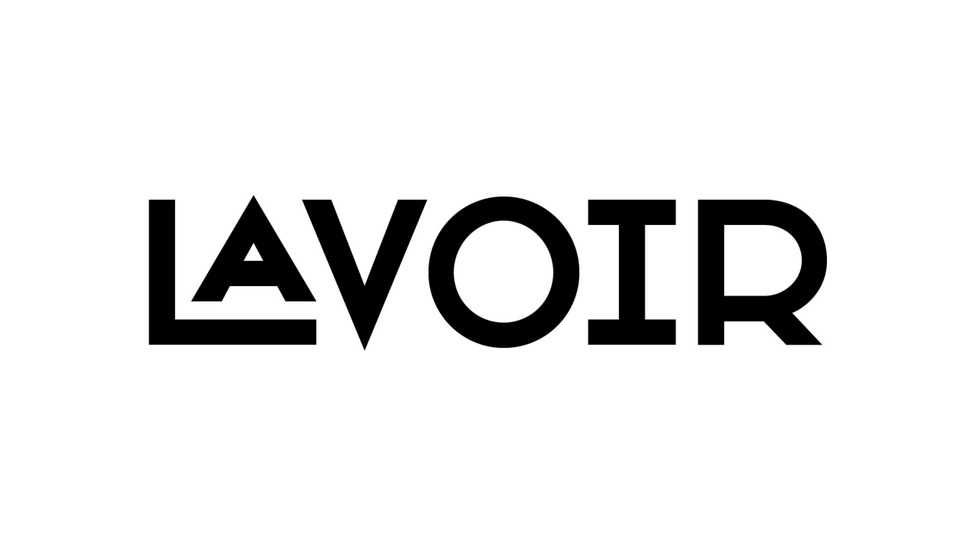
Download Lavoir font, a display typeface based on a mosaic lettering found on the front door of Lyon’s old public baths. It’s an attempt to explore and bring back it’s great Art Deco style with this all caps typeface.
Designer: Alex Chavot